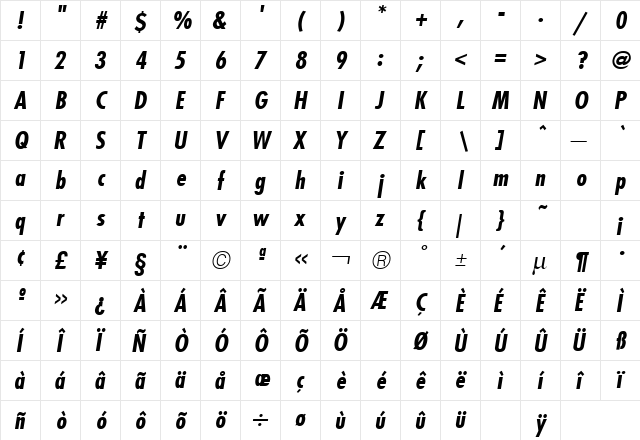
Futura Condensed Bold Italic Font Preview
Design Context for Futura Condensed Typeface
Futura Condensed channels digital-age aesthetics through its sharp, structured letterforms — ideal for brands that want to signal innovation. The dynamic lean of this cut emphasises speed and emphasis in any layout. The heavy weight commands attention and anchors typographic hierarchies. The condensed width makes it efficient for tight spaces without sacrificing legibility.
Pro Tip: Use Futura Condensed in combination with a neutral sans for body text. Let it define the brand voice in headlines while keeping reading comfortable elsewhere.